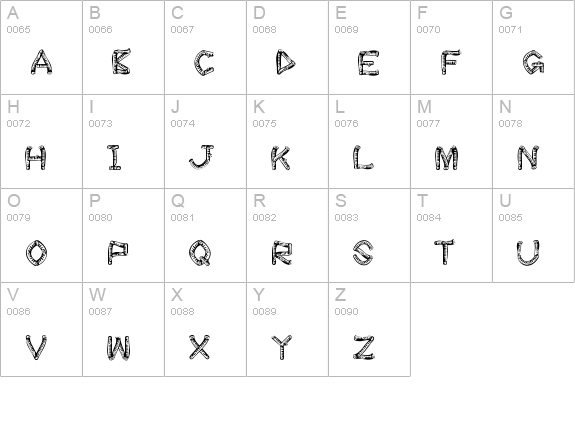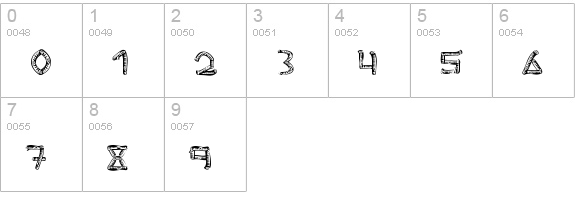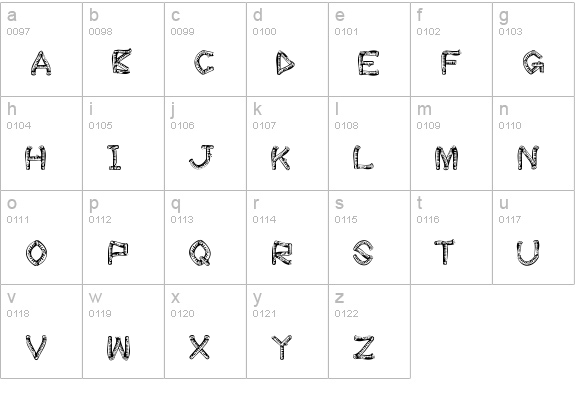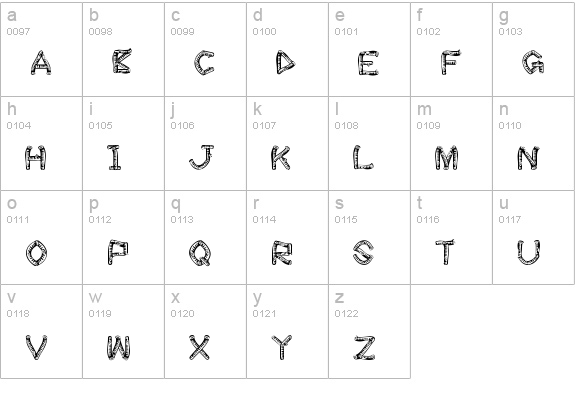
Introducing the captivating Wood Sticks font, a charming and rustic typeface that will bring a touch of nature to your design projects. This unique font features intricate wood stick-inspired letterforms that exude warmth and authenticity. Perfect for adding a natural and organic feel to your designs, Wood Sticks font is ideal for various creative projects, from branding to packaging to social media graphics. What makes Wood Sticks font even more appealing is that it is freely available to download at FontsMarket.com. Yes, you read that right - you can easily access this beautiful font at no cost and start incorporating its earthy charm into your designs today. Don't miss out on this wonderful opportunity to enhance your projects with the rustic elegance of Wood Sticks font. Download it now and let your creativity flourish!